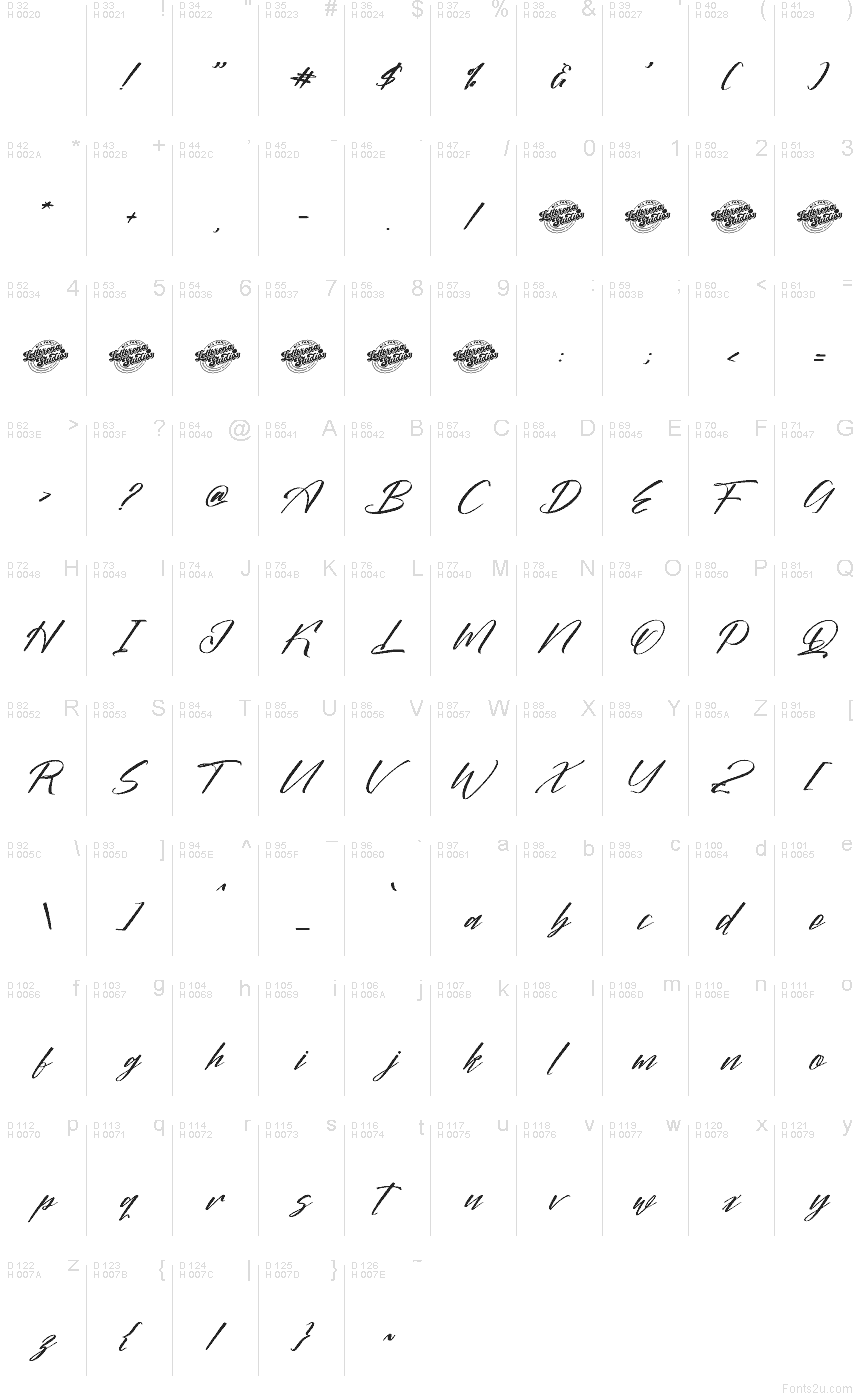
Bokeylan Qimghora DEMO VERSION Italic
Bokeylan Qimghora Italic font by Letterena Studios is a free handwritten signature typeface that turns any name or phrase into a sweeping, inky autograph. Its long, curling strokes, quick flicks, and elegant rightward slant give the Bokeylan Qimghora family a polished, fashion-inspired feel—like a pen gliding confidently across smooth paper. Letters connect with an easy rhythm, so your titles look fluid rather than pieced together.
Using Bokeylan Qimghora Italic, you can craft luxe logo signatures, wedding invitations, photography watermarks, beauty and perfume labels, modern stationery, and social media branding. This free font shines at larger sizes where its flourishes can breathe, then pairs beautifully with a clean geometric sans serif for supporting text to keep the overall look sharp and intentional.